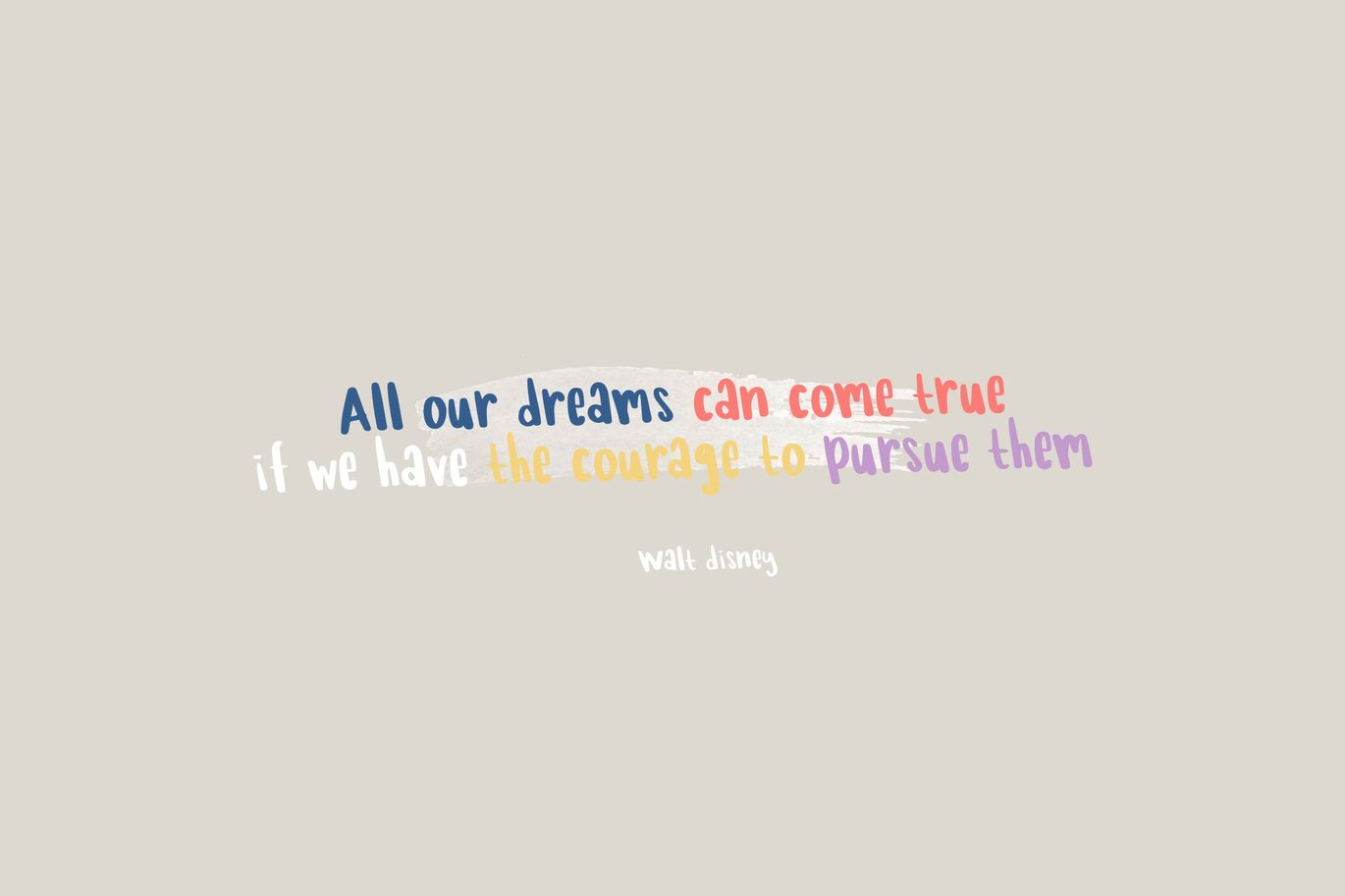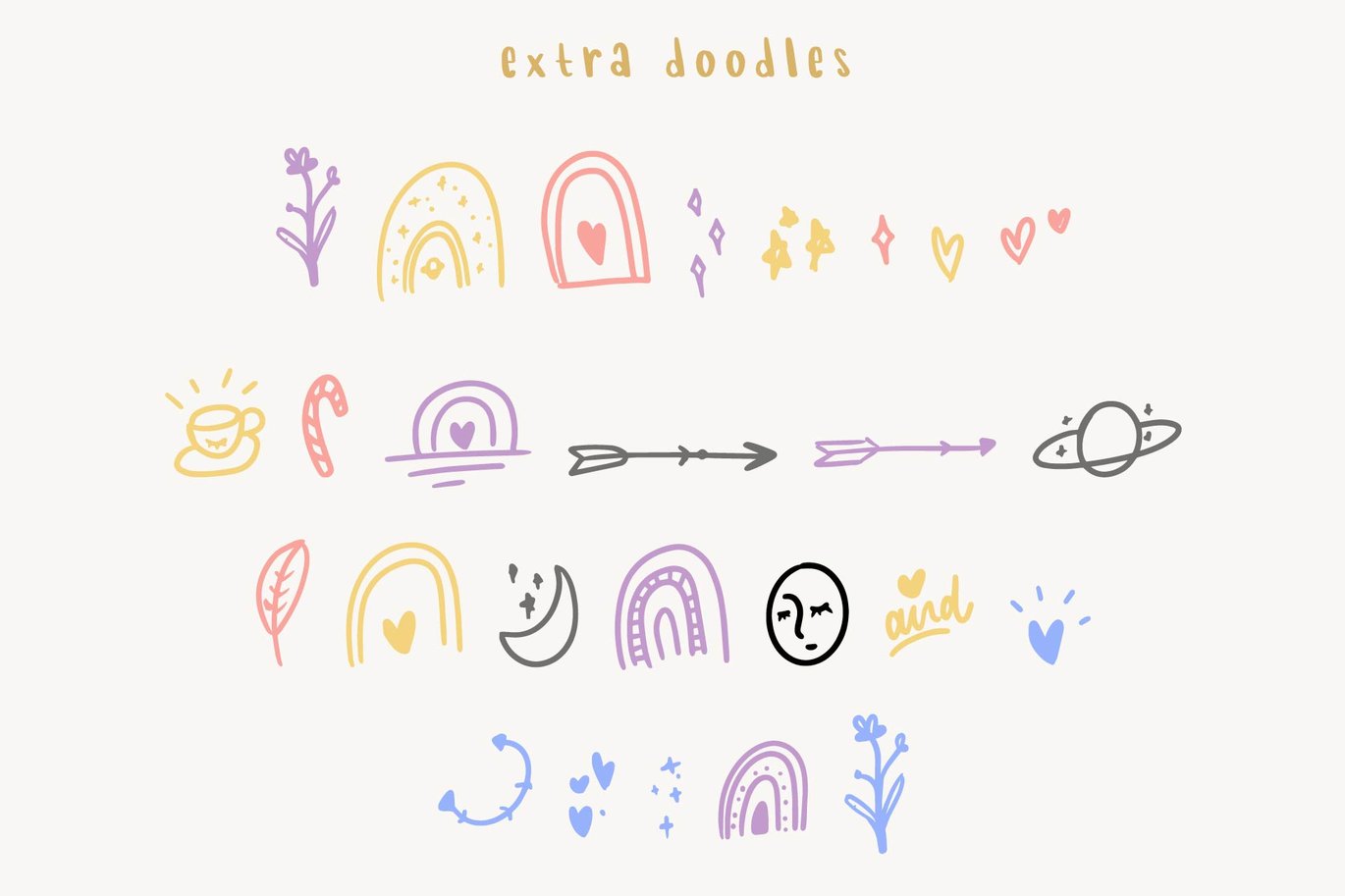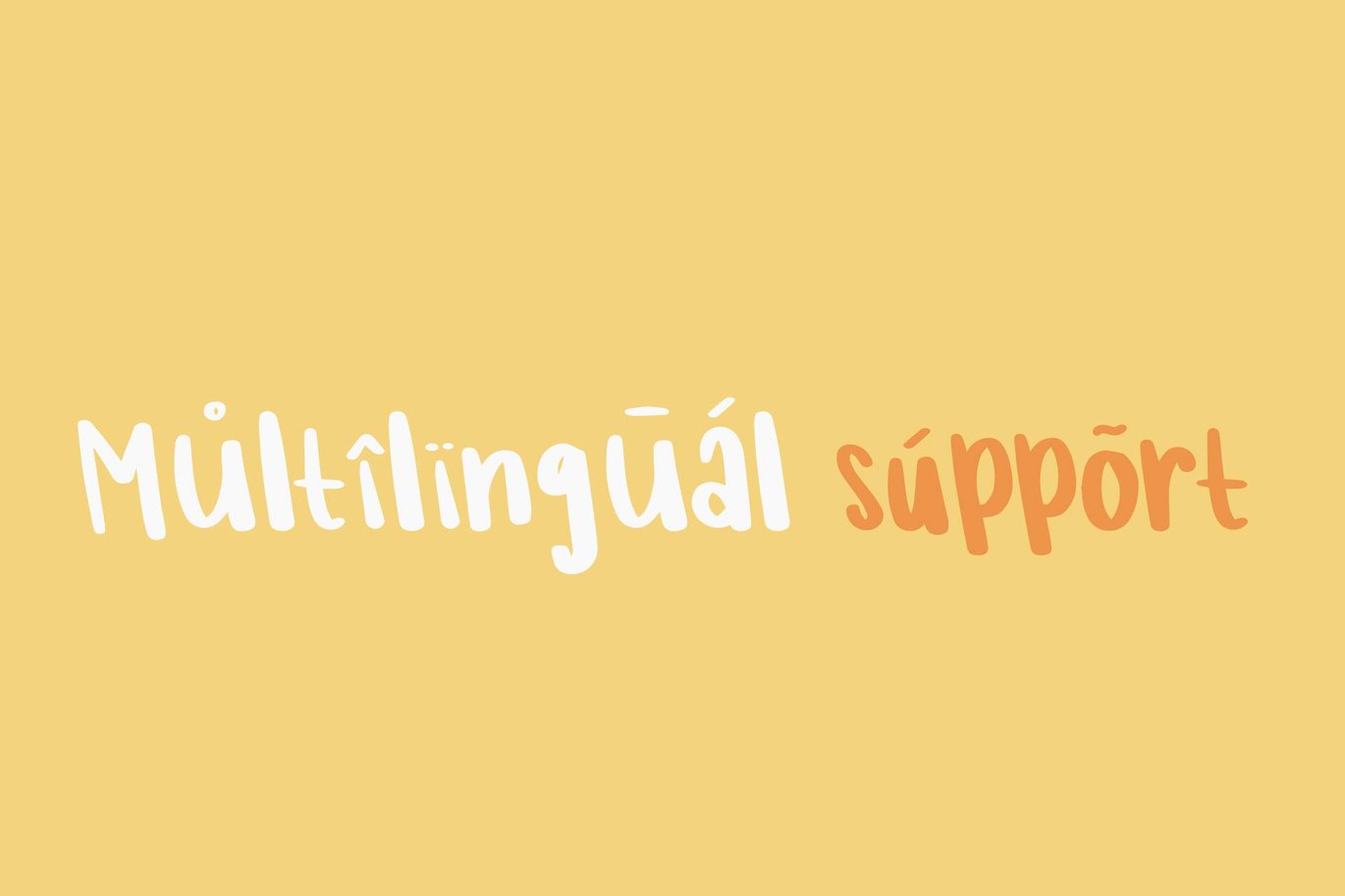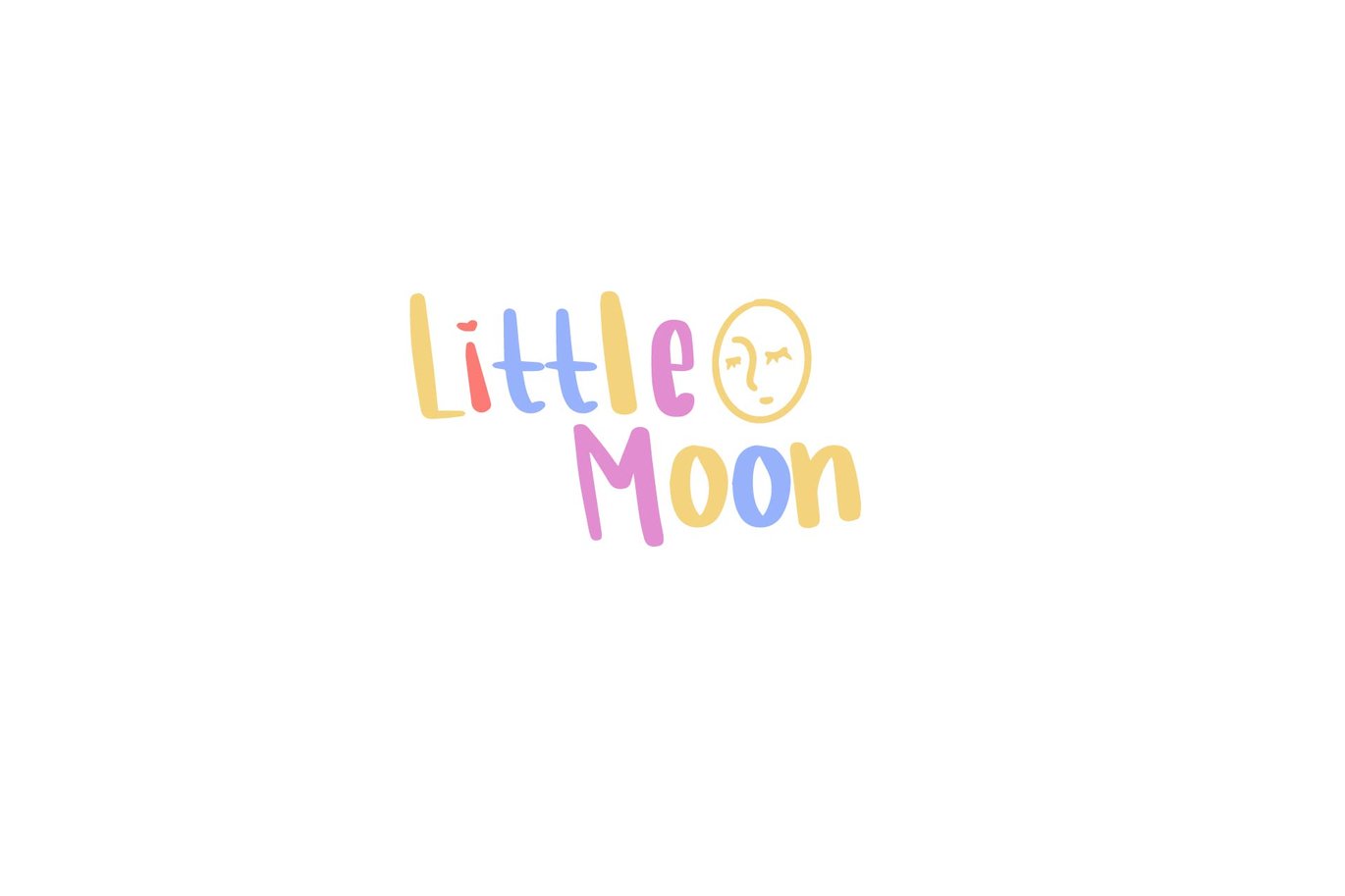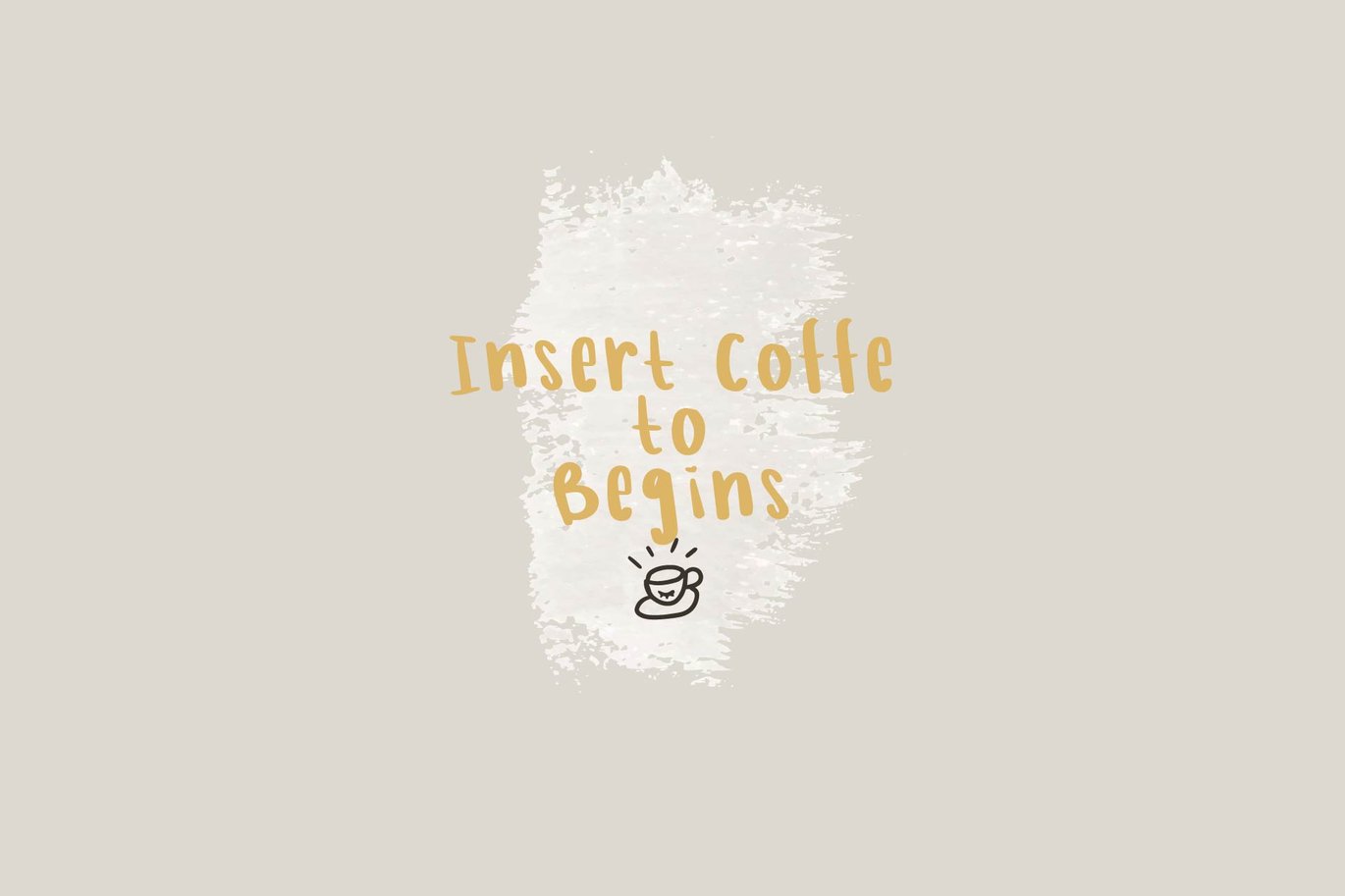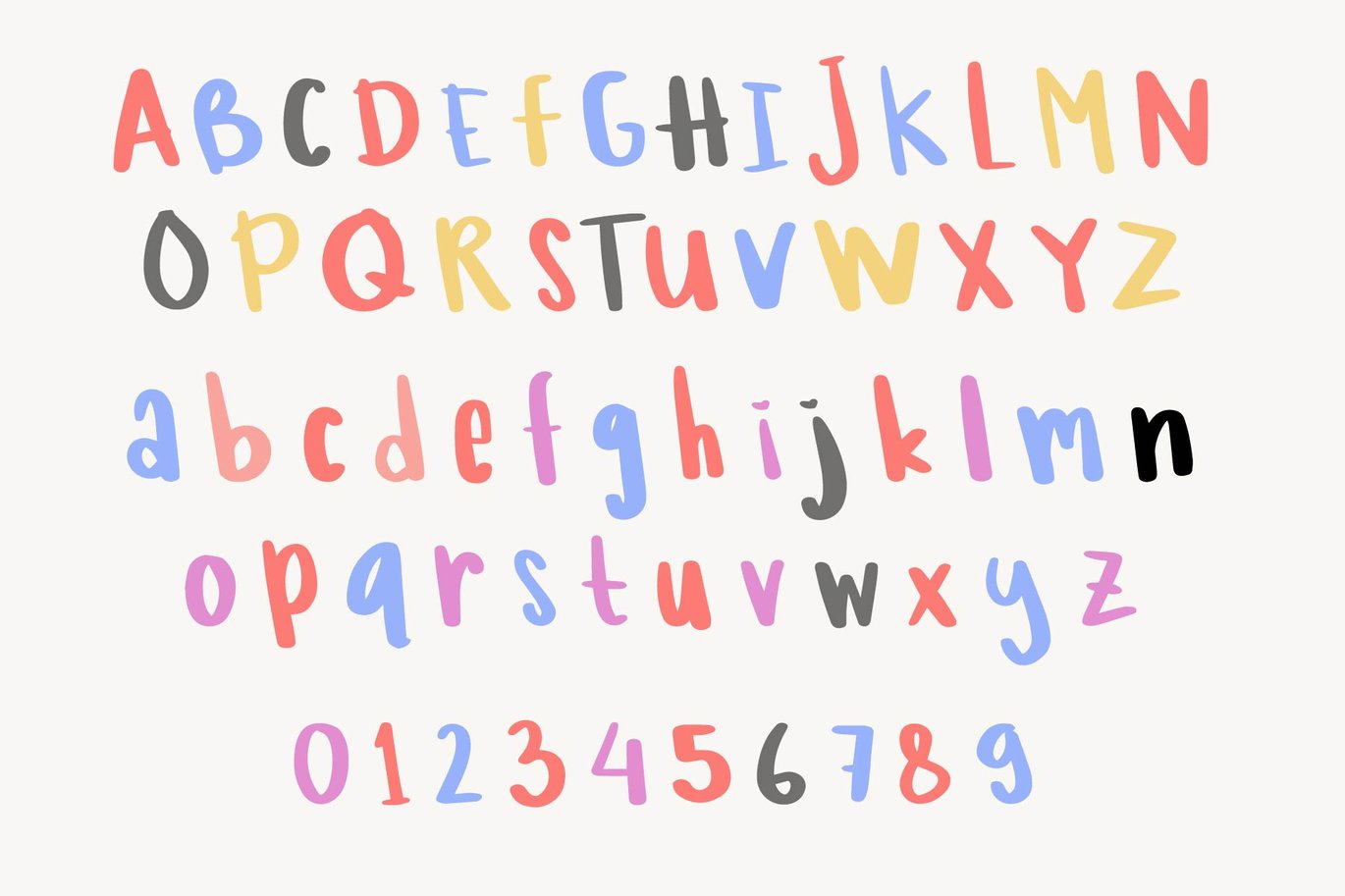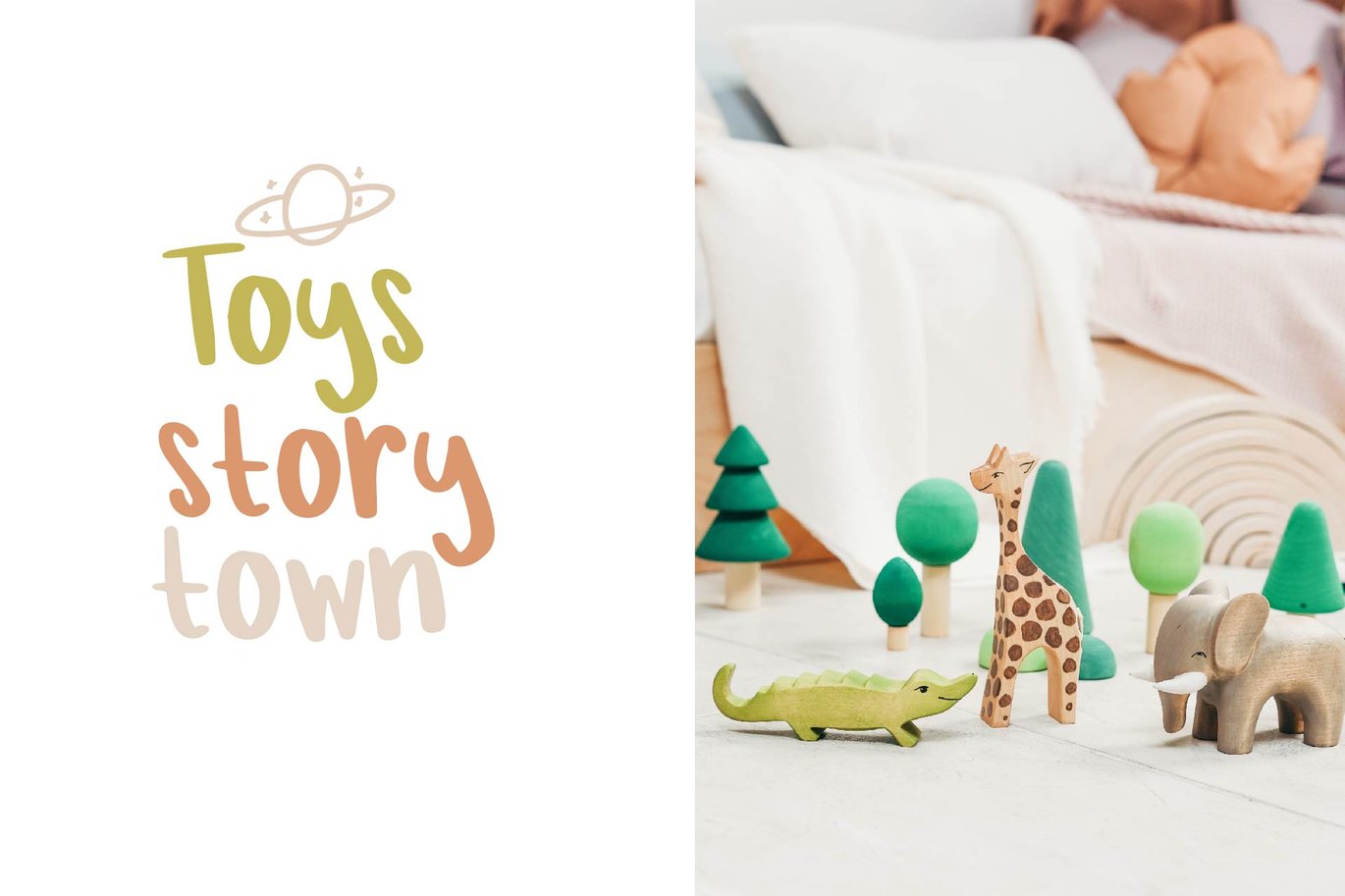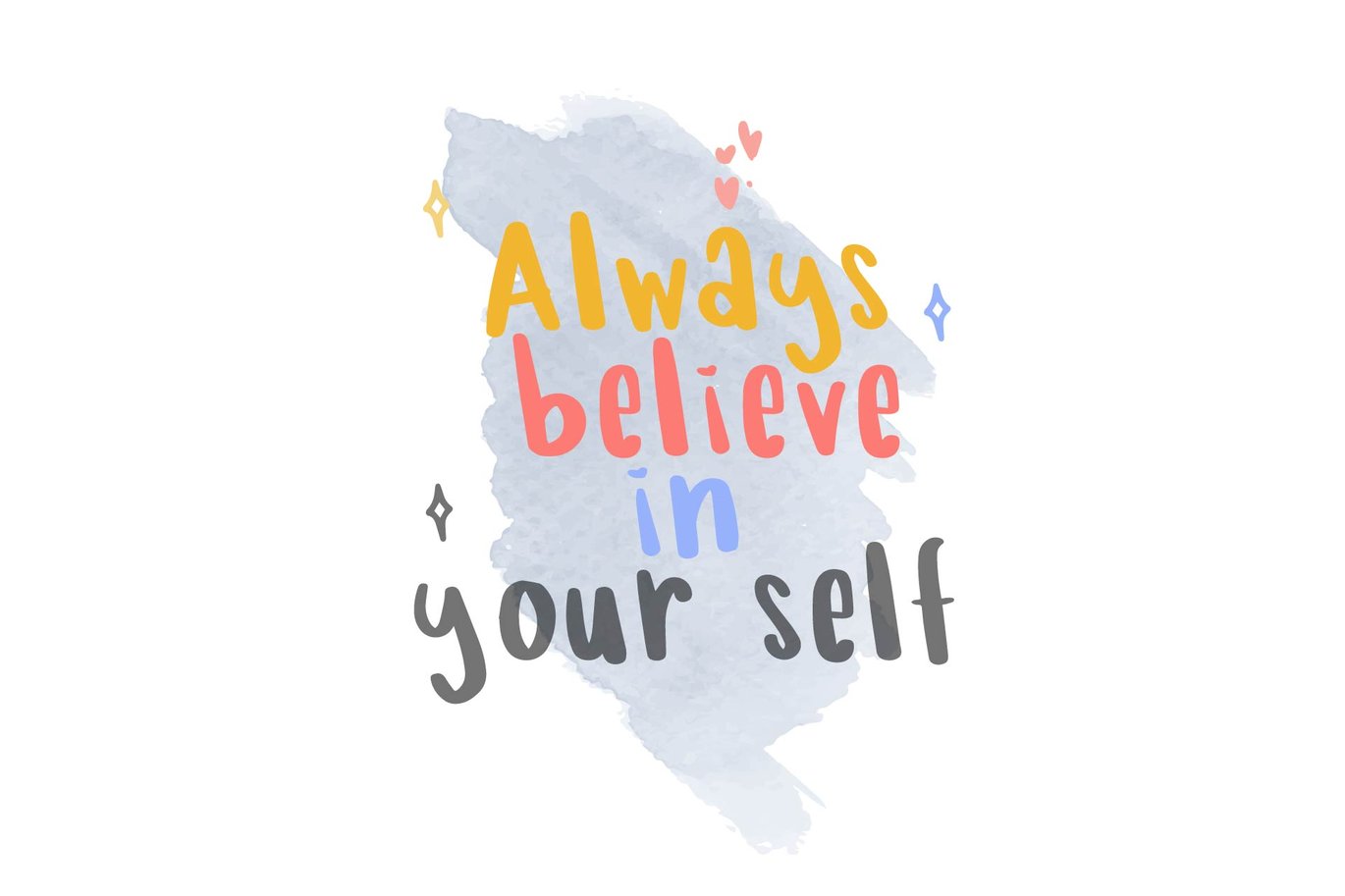
Lumierre Bear | Child Font + Doodles
Lumierre Bear is playful font family which puts a smile on your projects and will inspire you to create something fun and memorable. It is perfect for headings, flyer, greeting cards, product packaging, book cover, printed quotes, logotype, apparel design, album covers, etc.
- Doodles
Lumierre Bear- Characters Set